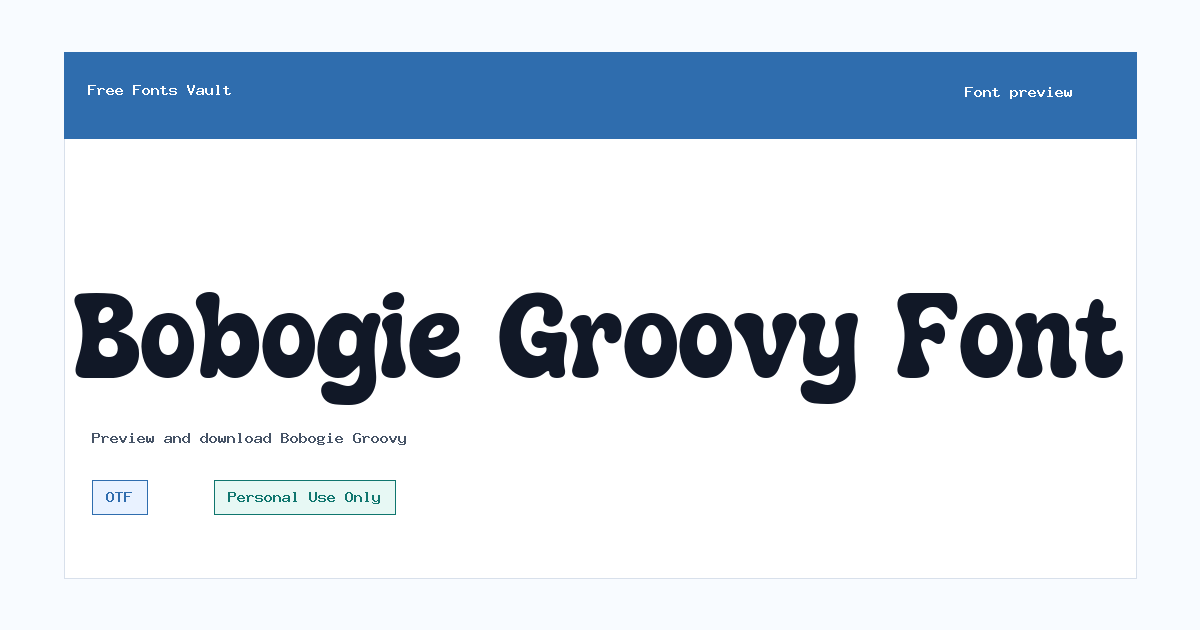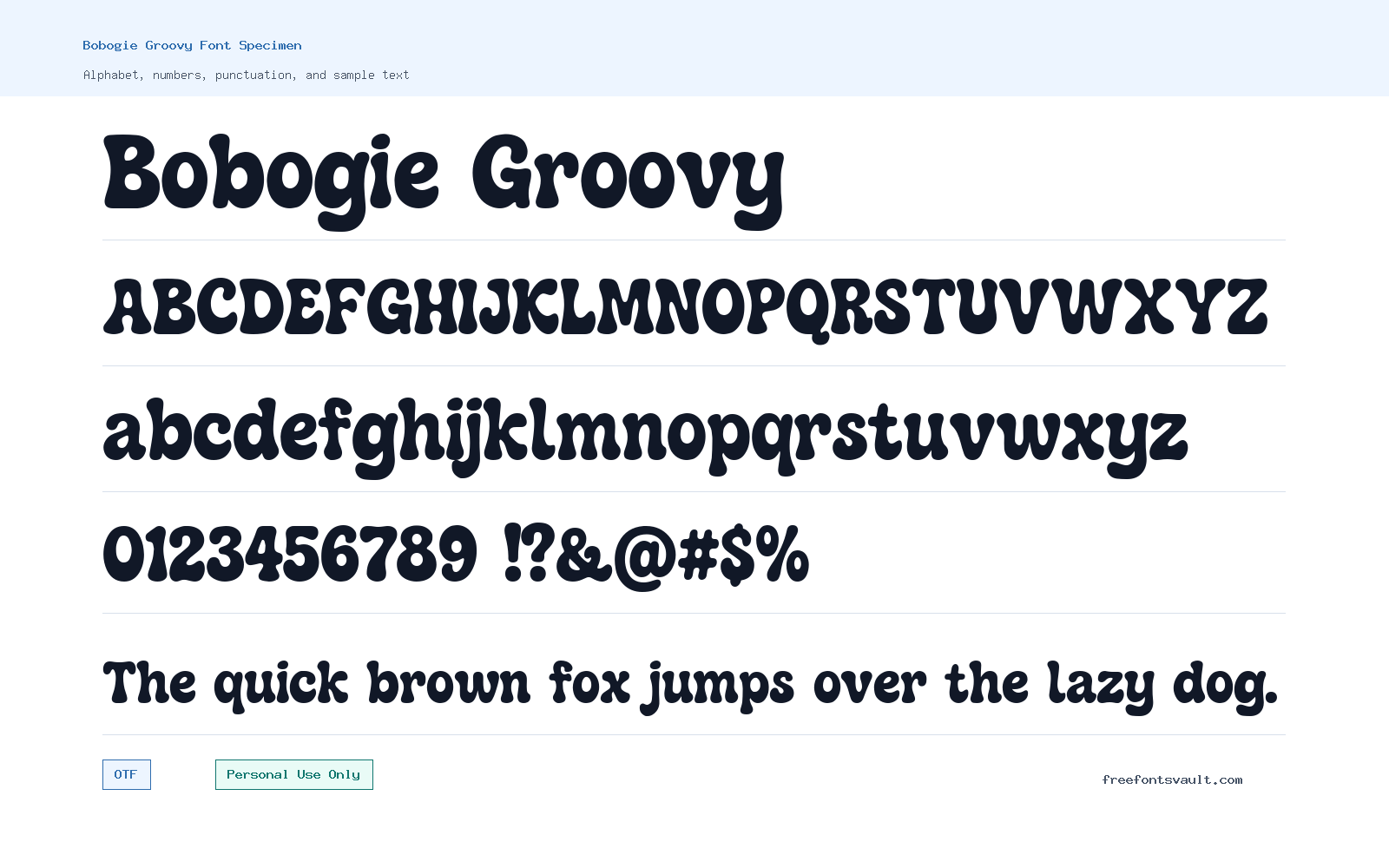
Bobogie Groovy
- Designer Muhammad Asroful Umam
Bobogie Groovy is a display font with a playful name and a personal-use license. It is best approached as a short-text font: try it in the preview for headlines, names, stickers, or poster-style wording before downloading.
Bobogie Groovy is a regular-weight OTF font from Muhammad Asroful Umam. The available file is a single regular style, so it is most useful when you want one clear display voice rather than a full family with multiple weights. Because the font is presented as a display font, it should be tested at larger sizes first, where its character shapes can be seen clearly and the mood of the lettering has room to show.
For best results, use Bobogie Groovy in short phrases instead of long paragraphs. Try it for titles, social graphics, logo drafts, packaging mockups, event headings, name tags, and decorative quotes. Before using it in a finished design, type your real words into the preview and check spacing, punctuation, numbers, and any special characters you need. If the design starts to feel busy, pair it with a simple sans serif or a clean serif for body text, captions, dates, and supporting information.
- Display-font style suited to short, attention-focused text rather than long reading
- Posters, headings, stickers, labels, and social media graphics
- Playful short text, name designs, decorative quotes, and logo concept previews
What is Bobogie Groovy best used for?
It is best for short display text such as headings, posters, stickers, labels, social graphics, and decorative title treatments. It is not the best choice for long paragraphs.